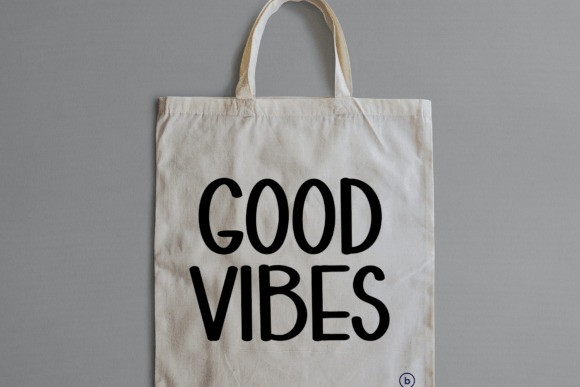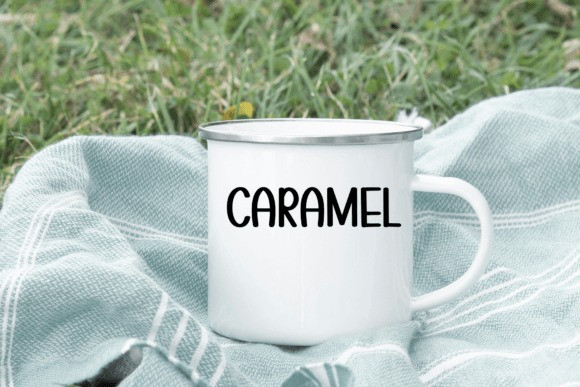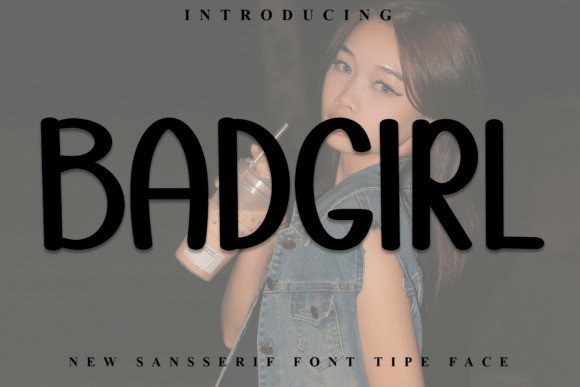
BadGirl Font
BadGirl Font is a lovely and timeless handwritten font. It is the best choice for creating eye catching logos, branding and quotes. Every letter has a unique and beautiful touch, which will make your design come alive!